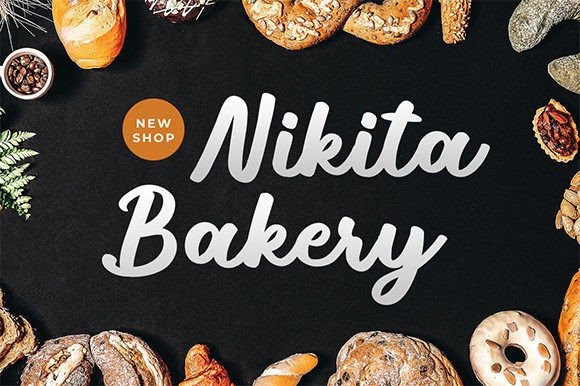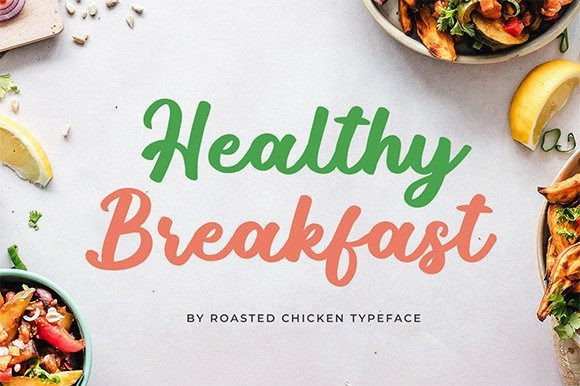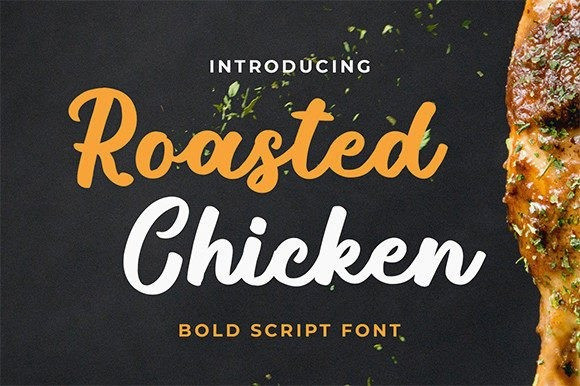
Roasted Chicken Font
Roasted Chicken Font is a fun and sweet handwritten script font. Add it to your most creative ideas, and notice how it transforms them into authentic pieces of art!